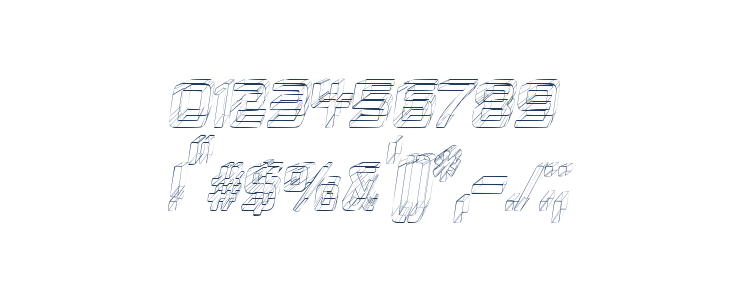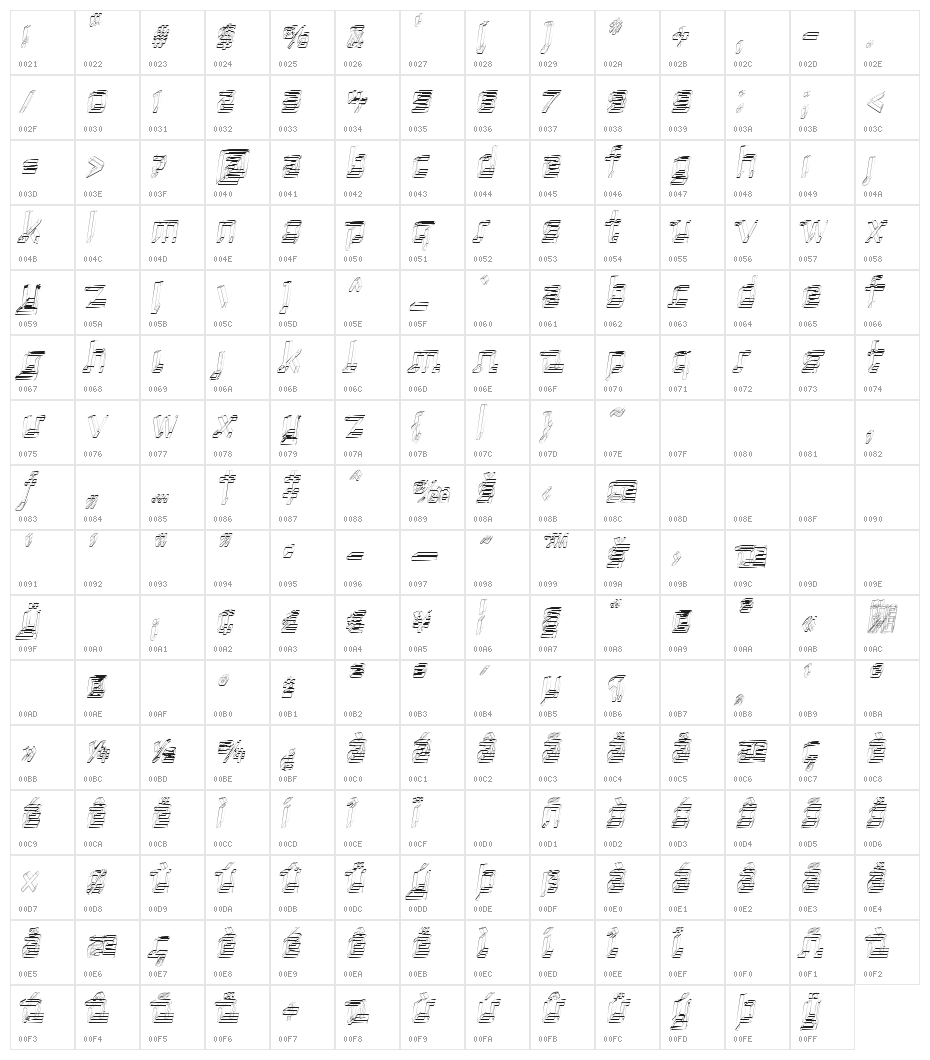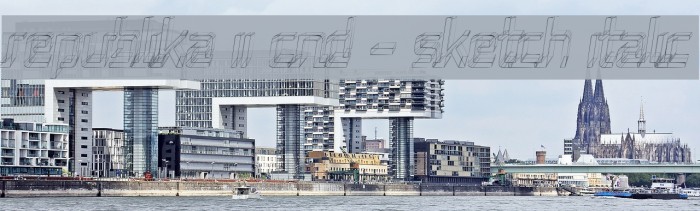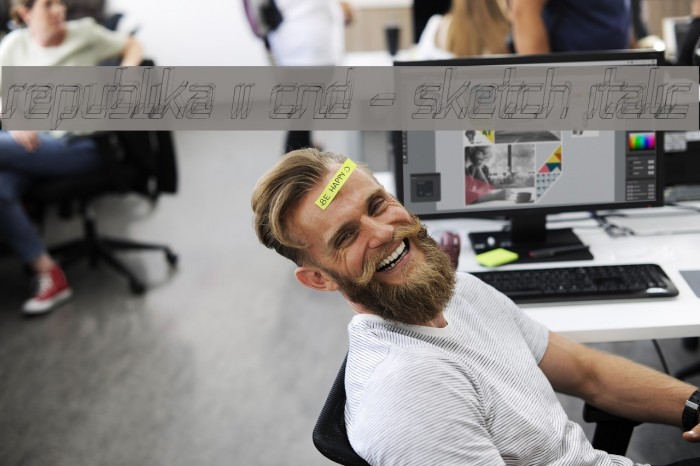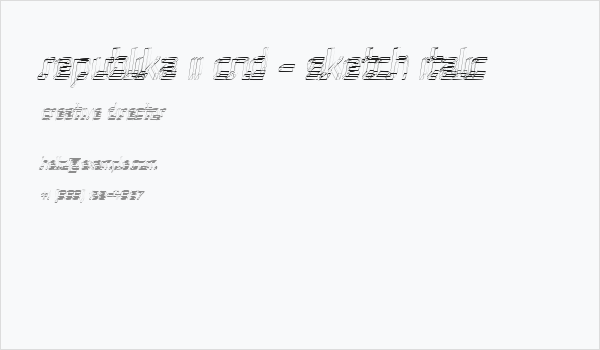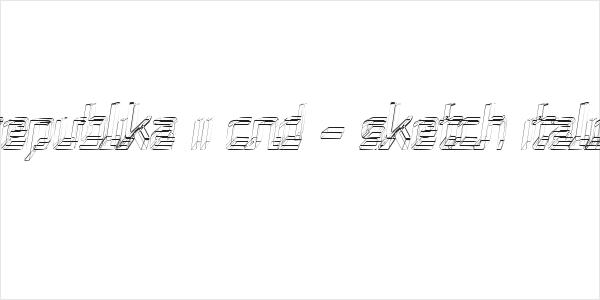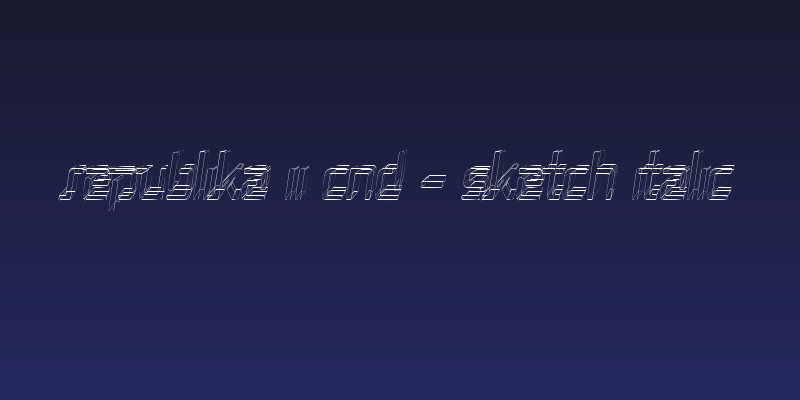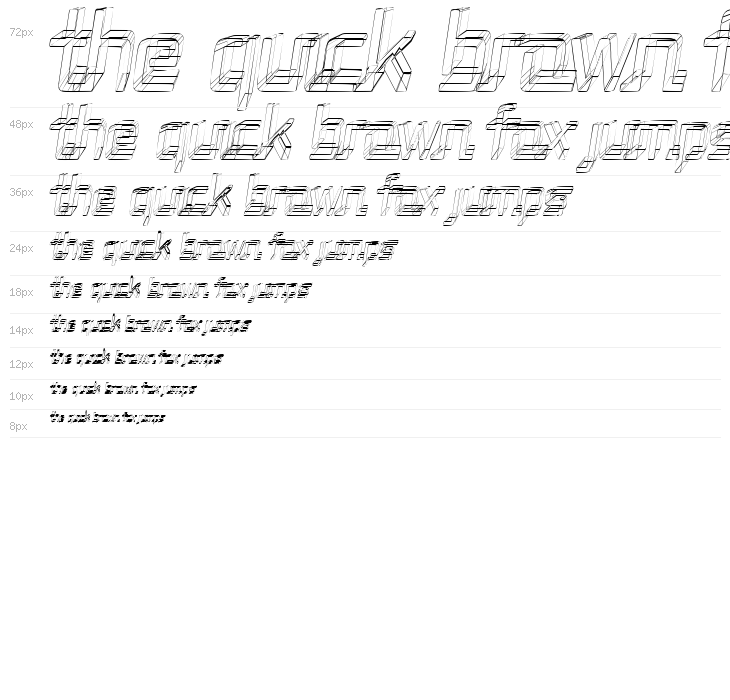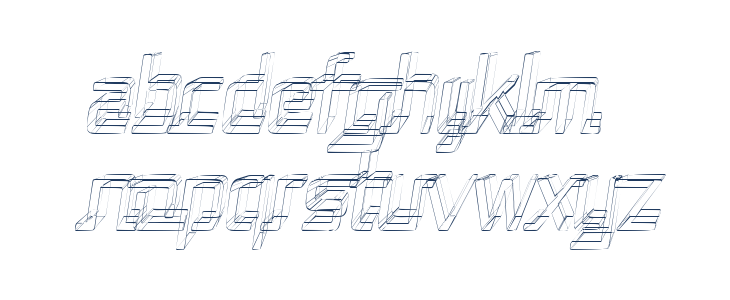
Republika II Cnd - Sketch Italic Font
Republika II Cnd - Sketch Italic Description
This font features a unique sketch-like appearance with a condensed and italicized style. The characters are outlined with a three-dimensional effect, giving them a dynamic and artistic look. The strokes are consistent in width, creating a uniform appearance across all characters. The font maintains a modern and edgy aesthetic, suitable for creative and contemporary designs. Its distinct style makes it stand out, while the italic slant adds a sense of motion and fluidity. The font's design is both playful and structured, making it versatile for various applications.